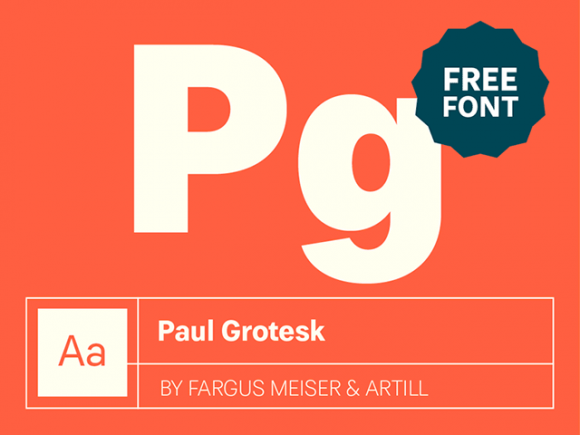
Free Paul Grotesk Modernist font-family
Free paul grotesk modernist font-family for any designer that is looking to display their design professionally. Freebies Bug has created this amazing and beautiful free typeface. This is absolutely cool font so you can easily make world-class designs.